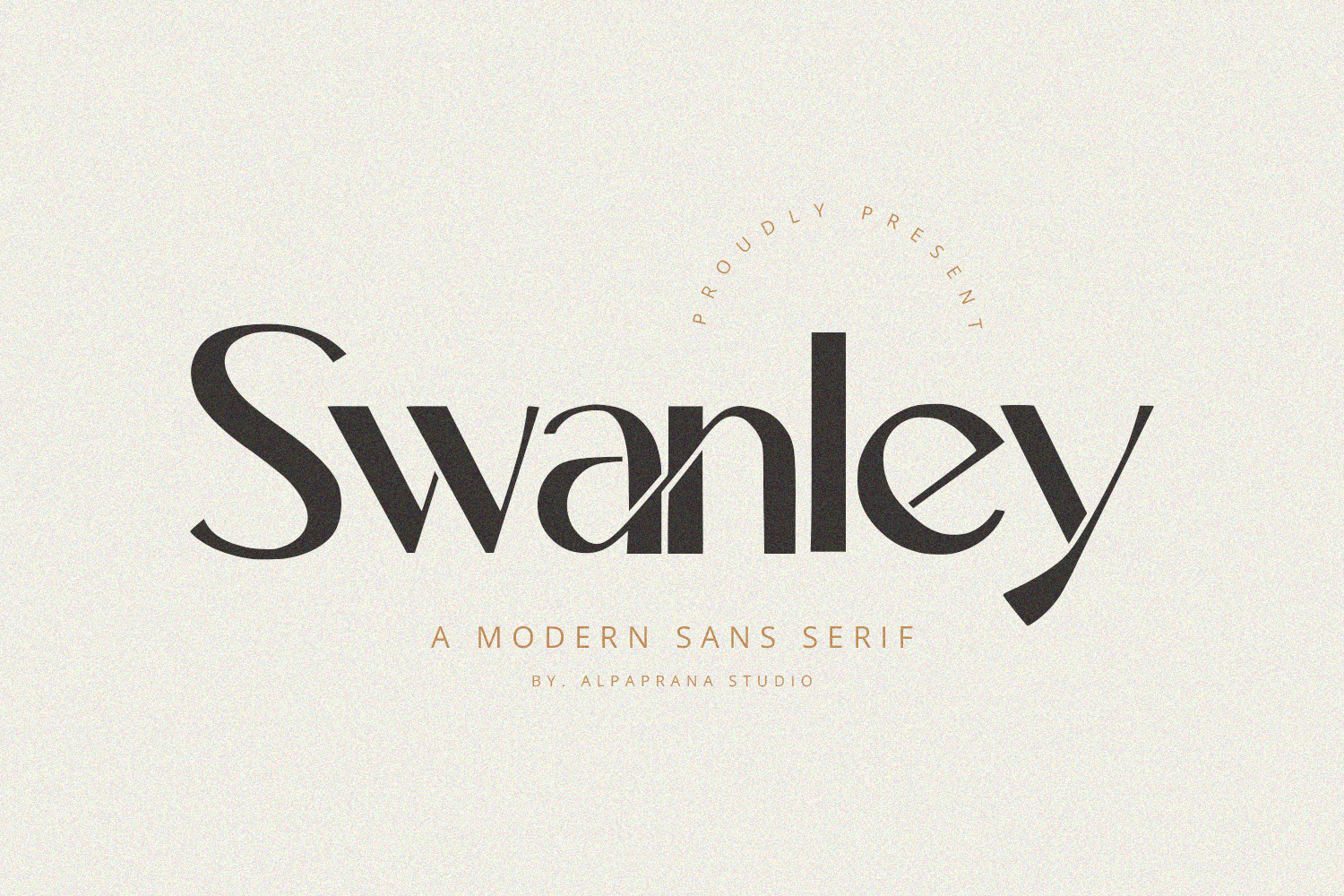
Swanley - Sans Serif Font
Swanley is modern sans serif font with elegant and modern feels. It will be perfectly used for Branding, Logo Design, Lettering, Logotype, Clothing, Poster, magazine, packaging, posters, shopping bags, t-shirts, book covers, photography, special events and other design project.
Features :
- Uppercase & Lowercase
- Numerals
- Punctuations (OpenType Standard)
- Accents (Multilingual Characters)
- Ligatures and Alternative Style Stylistic Set